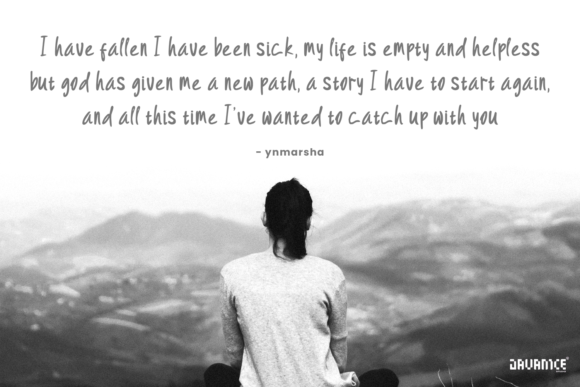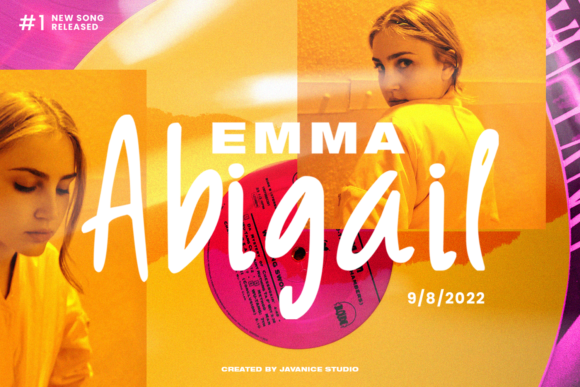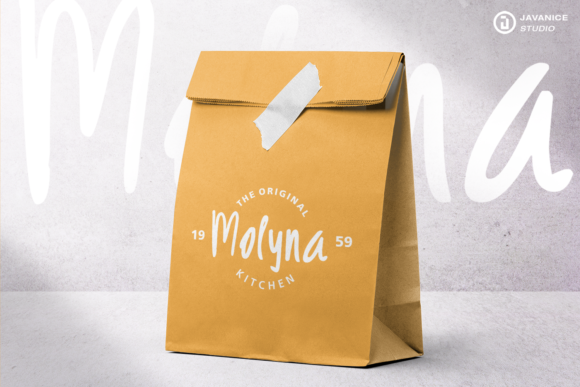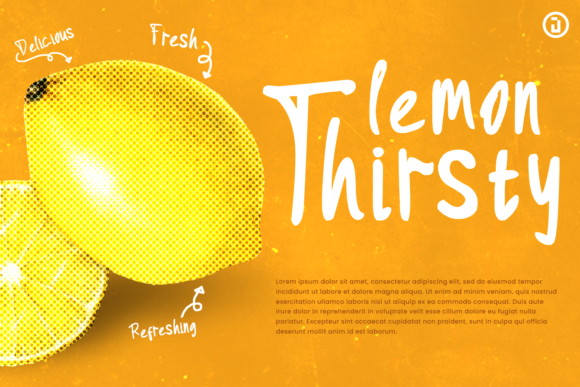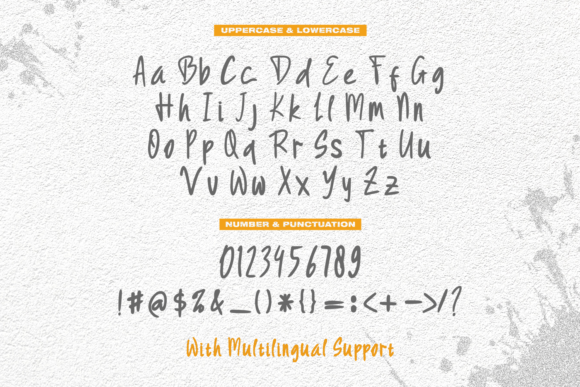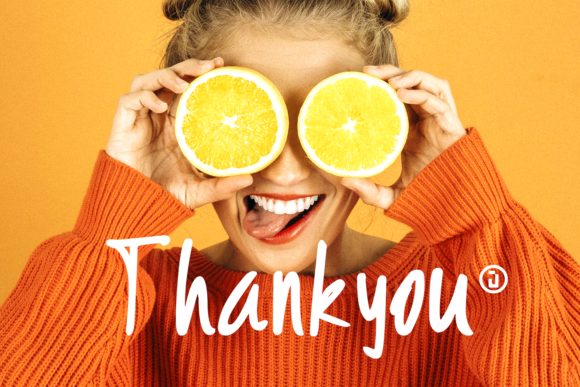
Introduction to Holywind Font
Holywind is a relaxed and casual handwritten font.
It is perfect for product packaging, branding project, magazine covers, social media, wedding, or just used to express words above the background .
Key Features of Holywind Font
Why Choose Holywind Font?
Holywind Font offers exceptional quality and versatility, making it a valuable addition to your design toolkit. Whether you’re creating for personal projects or commercial use, Holywind Font delivers professional results.